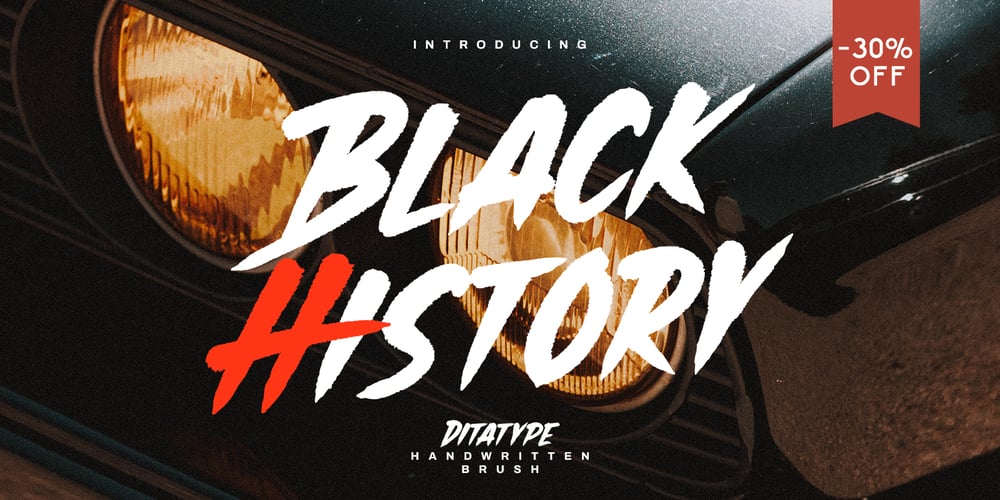
Black History Font Family was designed by Donis Miftahudin and published by Ditatype. Black History contains 1 styles and family package options. Black History is a handwriting script font to express personal, artistic nuances and is made in brush designs to produce casual and natural displays. The thick letter weight will show bolder impressions and emphasize the desired elements in the design.Combination of low contrasts, when the bright and the dark parts of the letters are not very significant, will create smooth effects. Unlike the other handwriting fonts, Black History’s letters are not always interconnected to each other. Furthermore, you can apply this font for big text sizes to be greatly legible and also enjoy the available features here.Features: Multilingual Supports PUA Encoded Numerals and Punctuations Black History fits best for various design projects, such as brandings, headings, magazine covers, quotes, printed products, merchandise, social media, etc. Find out more ways to use this font by taking a look at the font preview.Thanks for purchasing our fonts. Hopefully, you have a great time using our font. Feel free to contact us anytime for further information or when you have trouble with the font. Thanks a lot and happy designing.